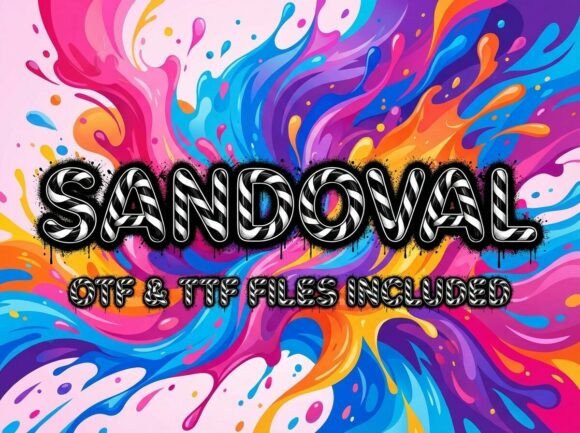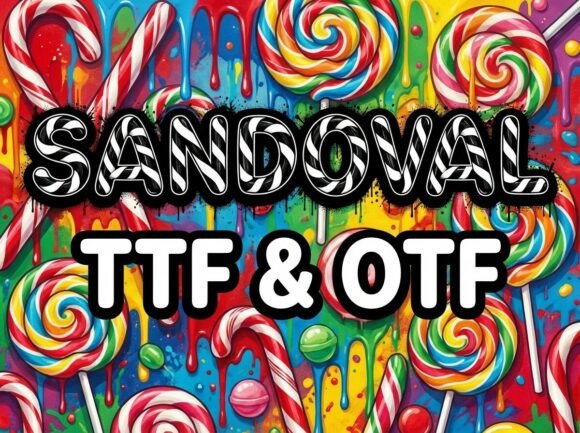
Introduction to Sandoval Font Font
Fonts play a crucial role in design, and the Sandoval Font font is a typeface that brings both character and versatility to any project. Whether you’re working on a branding project, a website, or a print design, the Sandoval Font font offers a unique style that can elevate your work.
Satisfy your craving for high-energy design with Sandoval, a bold display font that blends street-art grit with a whimsical candy-shop aesthetic.
This typeface features thick, rounded letterforms wrapped in a classic peppermint swirl pattern, further intensified by gritty spray-paint splatters and realistic drips With its “urban-confectionery” soul and rebellious weight, Sandoval is the premier choice for independent streetwear branding, boutique candy shop logos, skate culture graphics, and high-impact “pop-art” social media headers.
Key Features of Sandoval Font Font
Why Choose Sandoval Font Font?
The Sandoval Font font is more than just a typeface – it’s a design tool that helps you communicate your message with style and clarity. Its unique character set and versatile design make it suitable for a wide range of applications, from elegant invitations to bold headlines.
With its carefully crafted letterforms and balanced proportions, the Sandoval Font font ensures readability and visual appeal across all mediums.
What makes Sandoval Font font special?
The Sandoval Font font stands out with its unique design, exceptional readability, and versatility across various design applications.